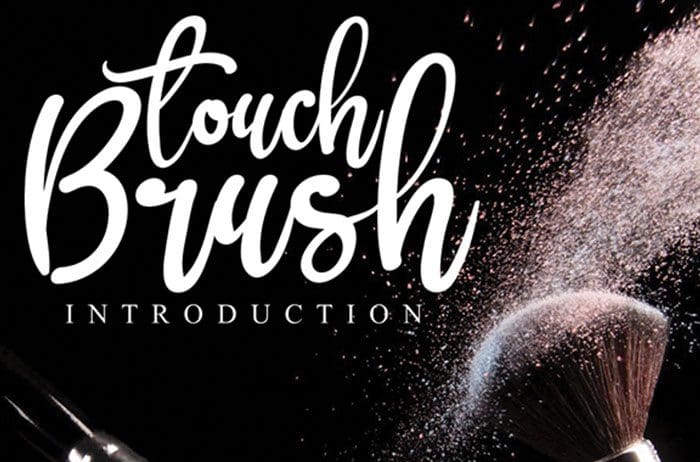
Brush Touch Brush Font
Brush Touch brush font feels equally charming and elegant. This stunning handwritten font is a stylish homage to classic calligraphy. It will elevate a wide range of design projects to the highest level, be it branding, headings, wedding designs, invitations, signatures, logos, labels, and much more! Designed this font by Andika Studio. You can also search more freeĀ Brush Fonts. Thanks!